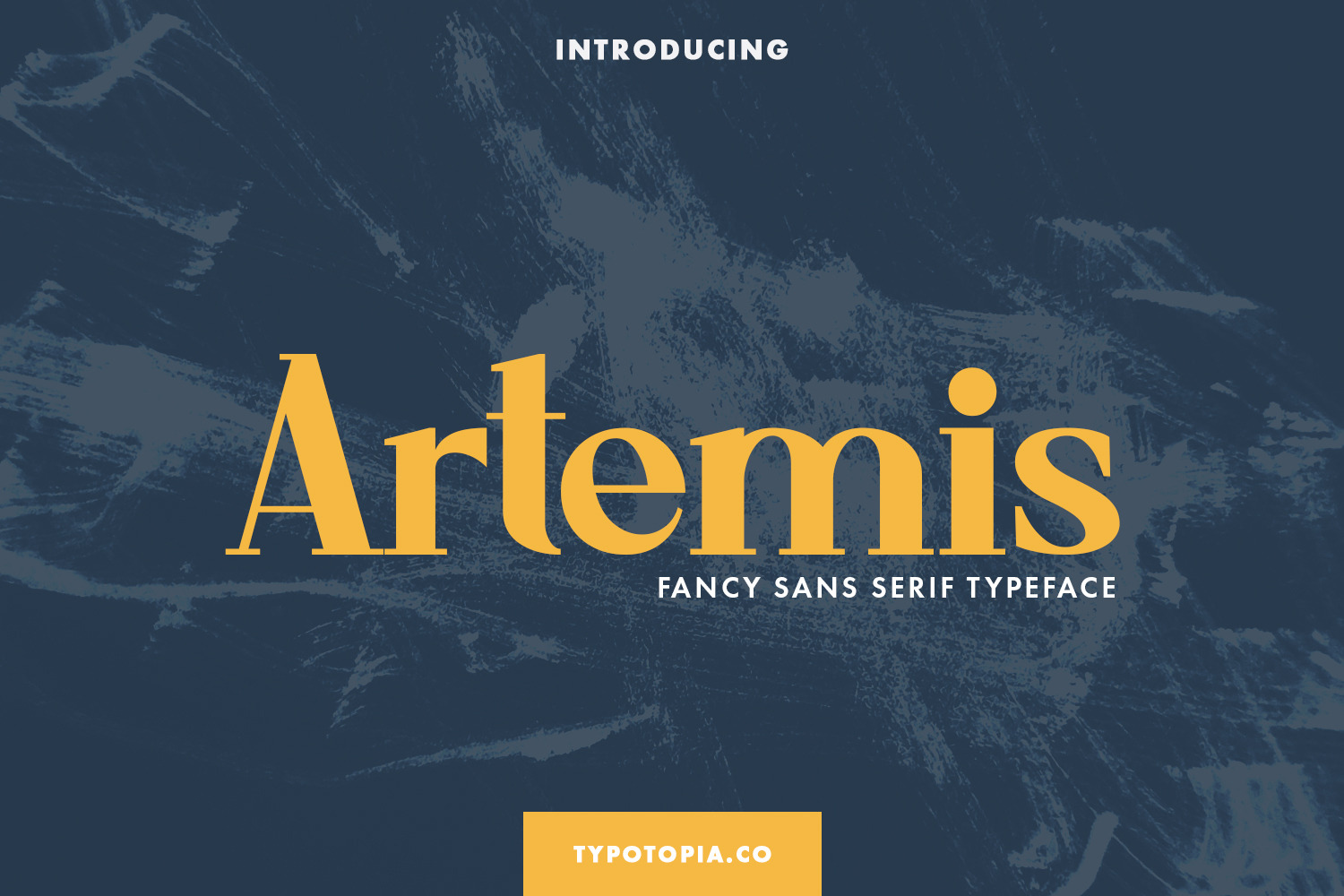
Artemis Fancy Sans Serif Typeface
Introducing, Artemis an incredibly Unique and Interesting Display Font!!
Artemis is an incredibly Unique and Interesting Display Font for your Design that is absolutely great for your next creative project such as logos, printed quotes, invitations, cards, product packaging, headers, Logotype, Letterhead, Poster, Apparel Design, Label, and etc.
This Versatile Font includes also supports Multilingual Characters. Making this Font a Swiss Army knife in your Font Library. It's extremely fun to use as each word can be transformed to your liking.
What are the main Features on This Fonts :
- Uppercase & Lowercase letters